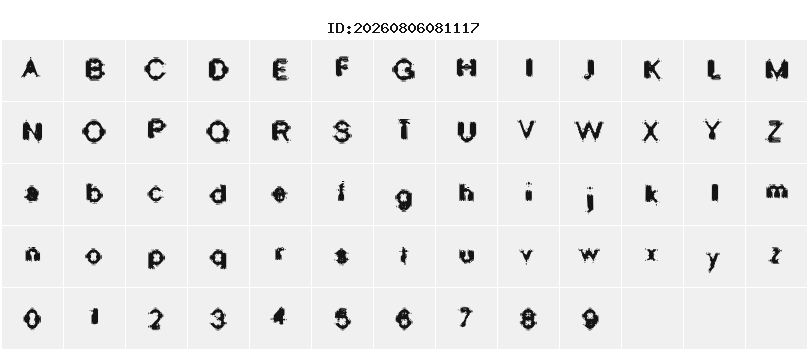
Oscillate Preview
• Font Name: Oscillate
• Full Font Name: Oscillate Regular
• Copyright: Designed by Josh Feldman for Premonition
About Oscillate.ttf
Oscillate.ttf is a modern, elegant sans-serif font designed for ultimate readability and visual harmony. Perfect for branding, headlines, web design, and print materials.